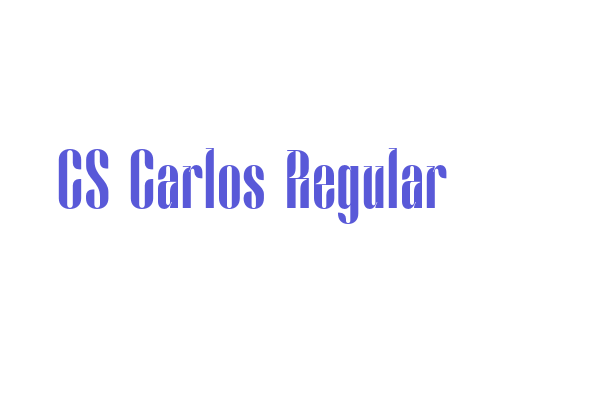
CS Carlos Regular is a versatile typeface designed by Craft Supply Co, perfect for adding a touch of creativity to your projects. This font falls under the Display category, embodying a casual yet sophisticated style that is sure to make your designs stand out.
With its clean lines and balanced proportions, CS Carlos Regular exudes a modern and contemporary vibe, making it ideal for a wide range of design applications. Whether you’re working on branding materials, posters, or websites, this font will bring a fresh and stylish look to your work.
Featuring a Regular subfamily, CS Carlos Regular strikes the perfect balance between professionalism and playfulness. Its smooth curves and elegant letterforms give off a cool and trendy aesthetic that is sure to captivate your audience.
Font Name: CS Carlos Regular
Designer: Craft Supply Co
Category: Display
Font Family: CS Carlos